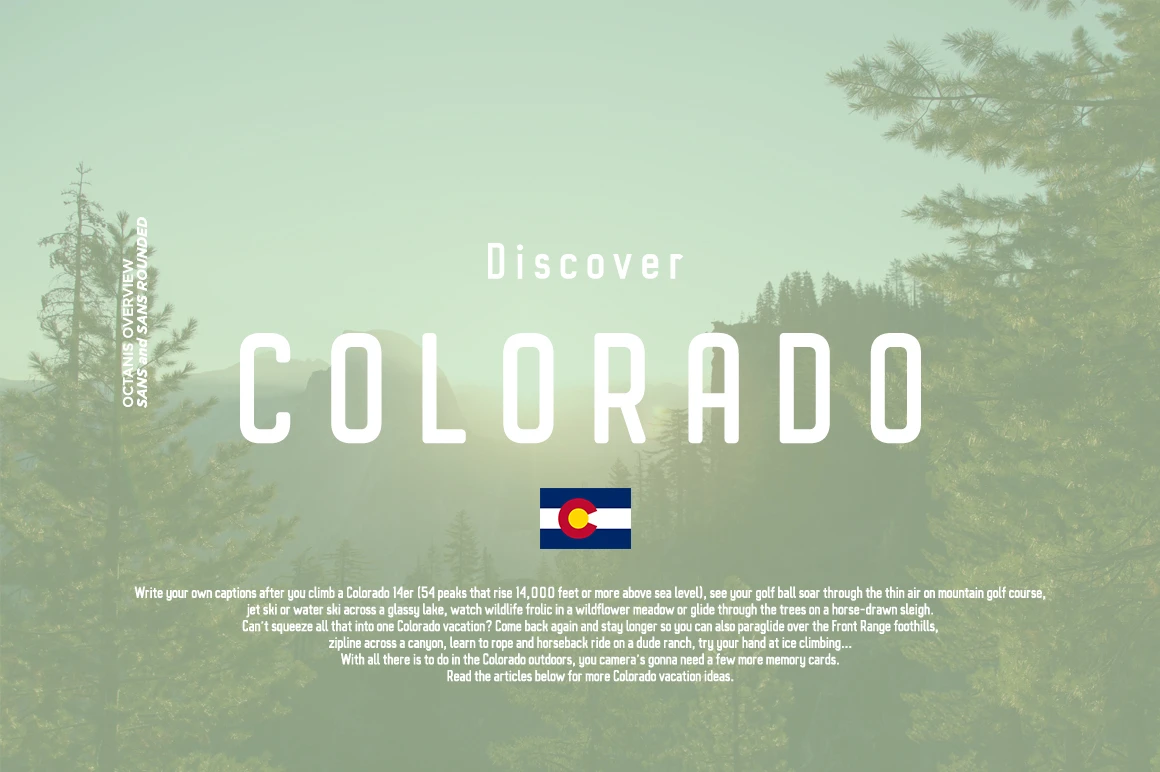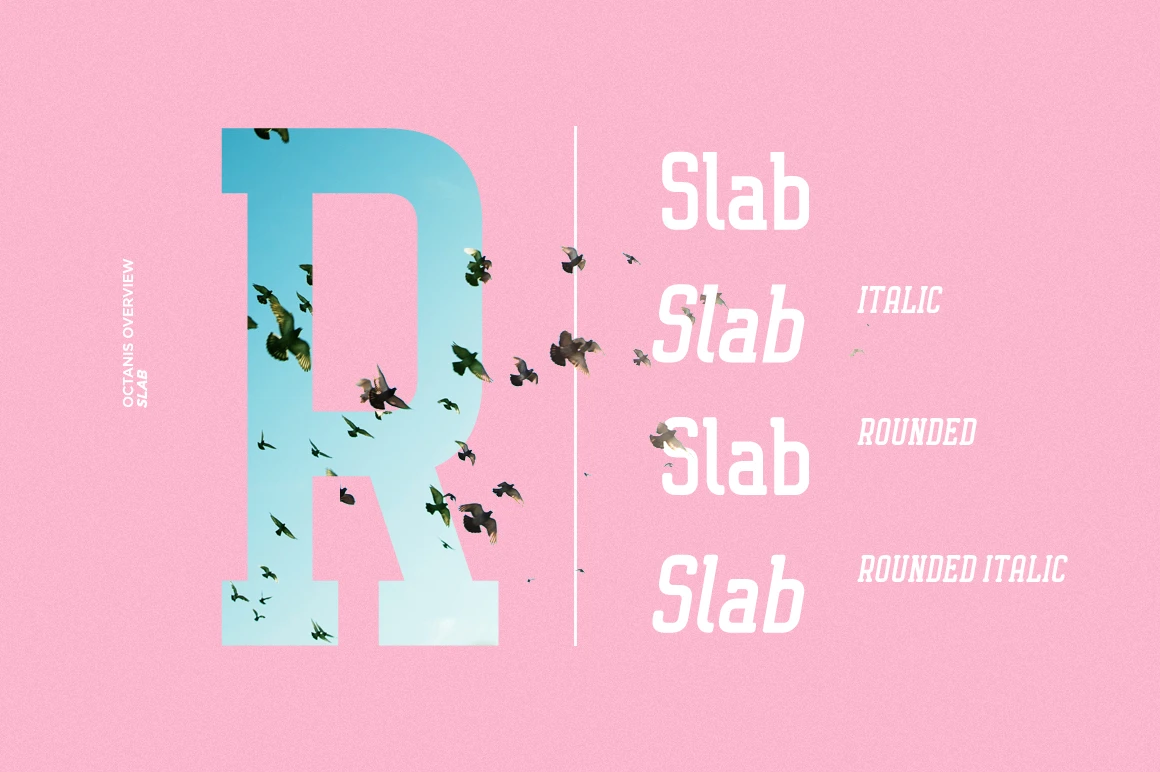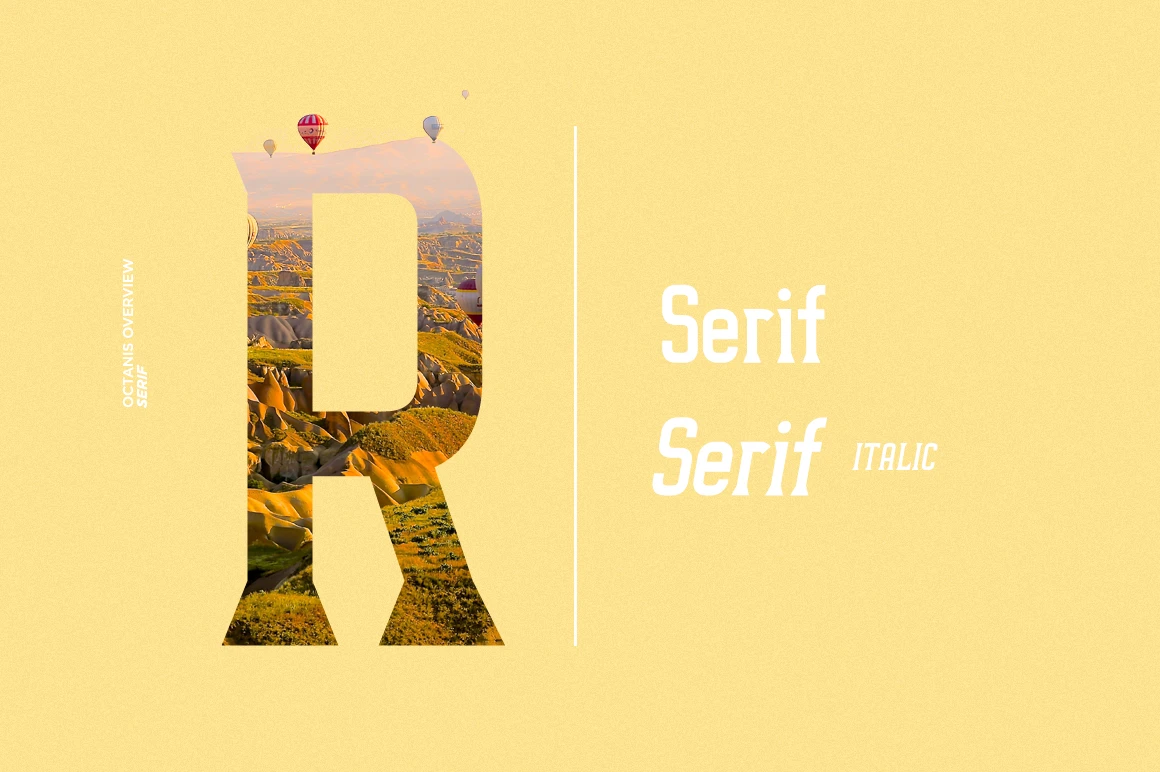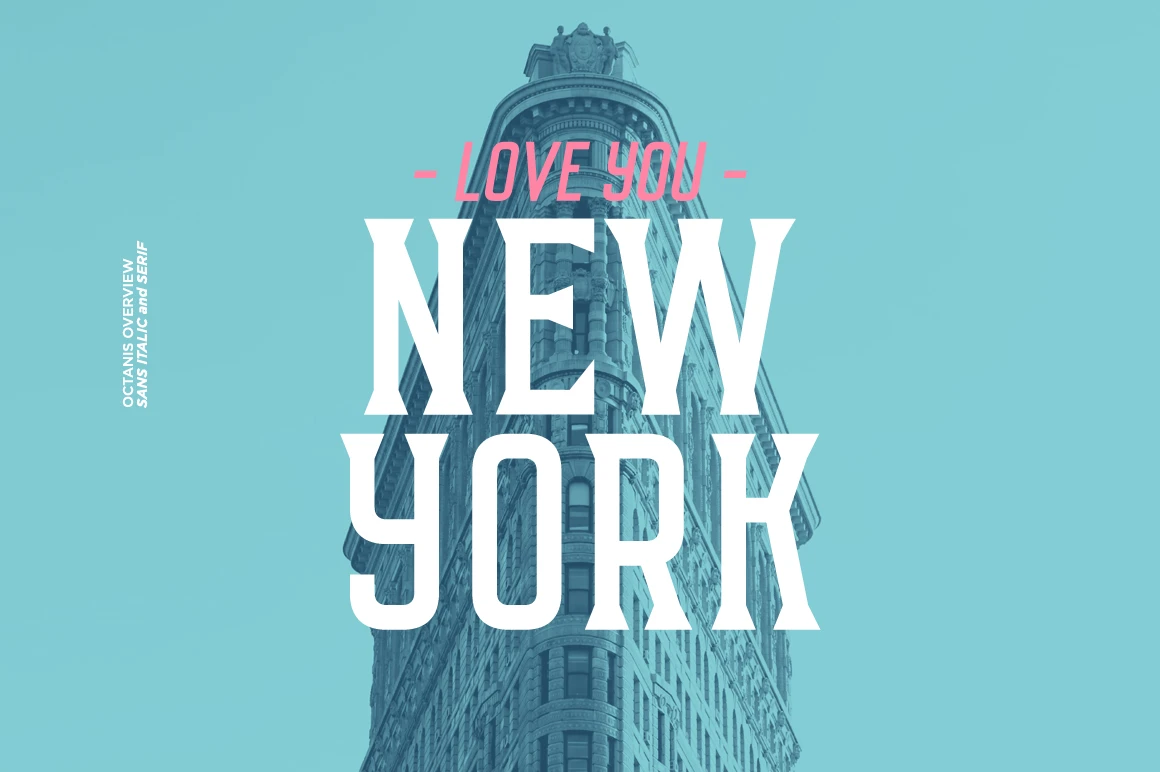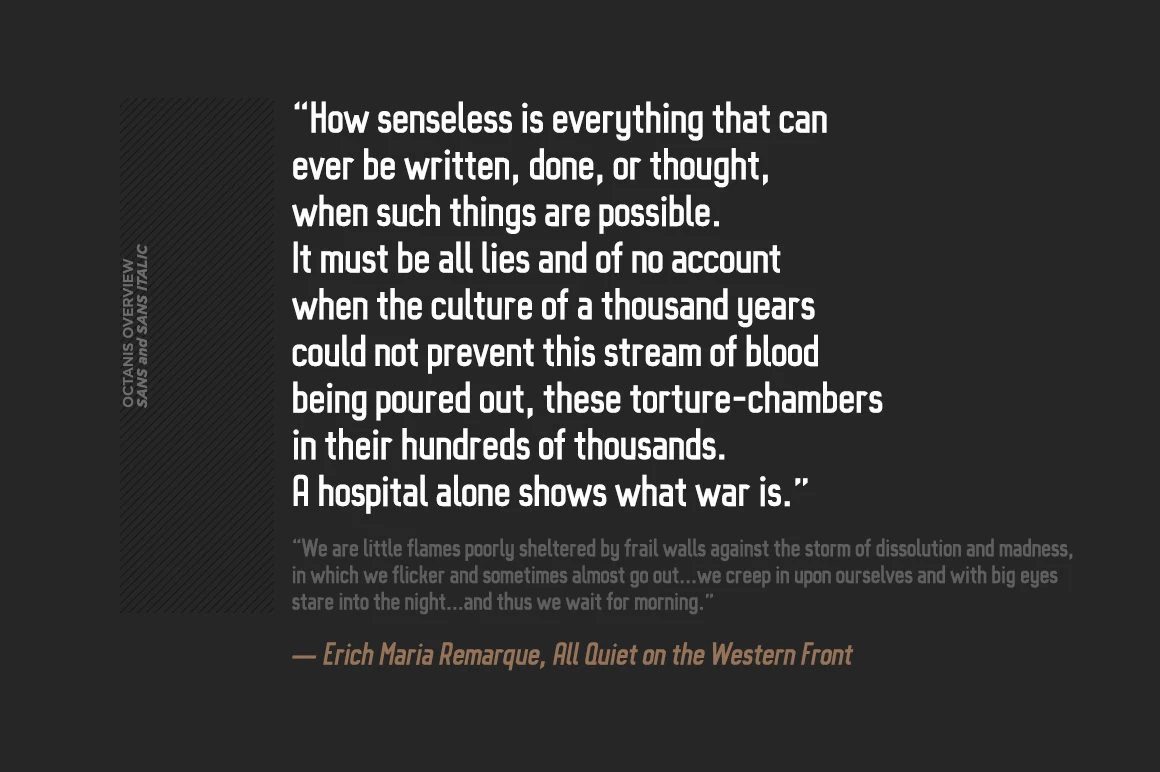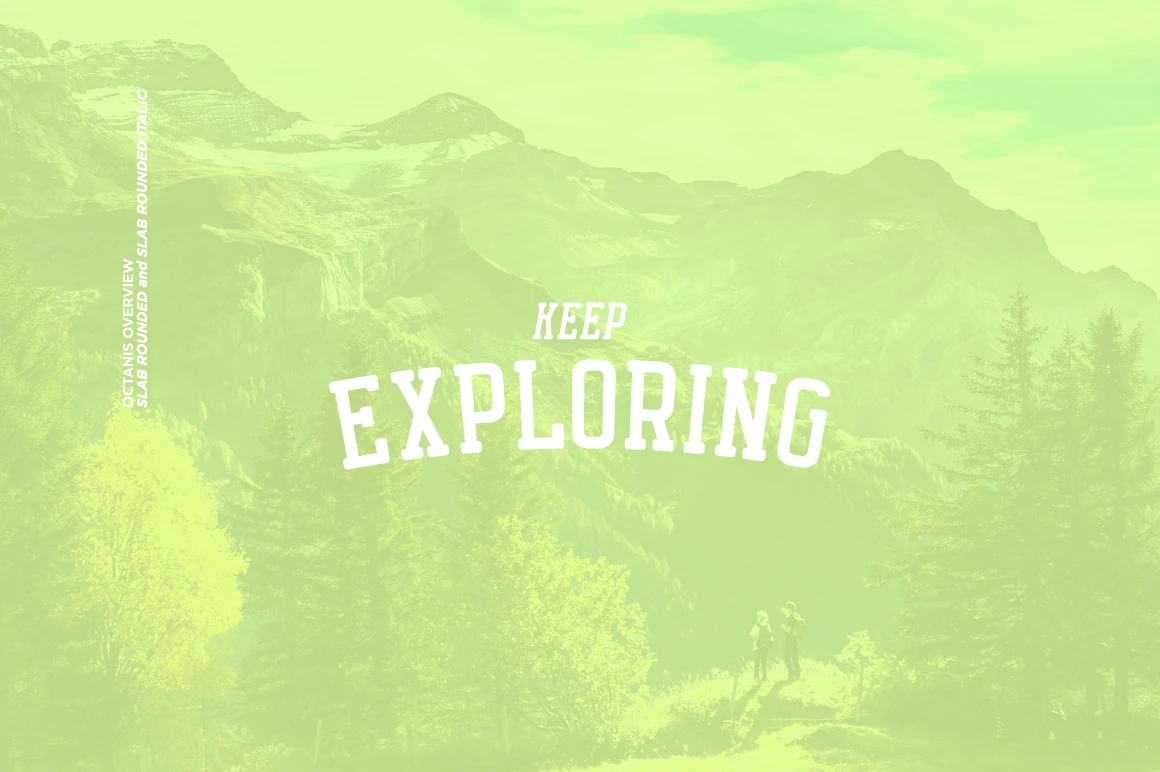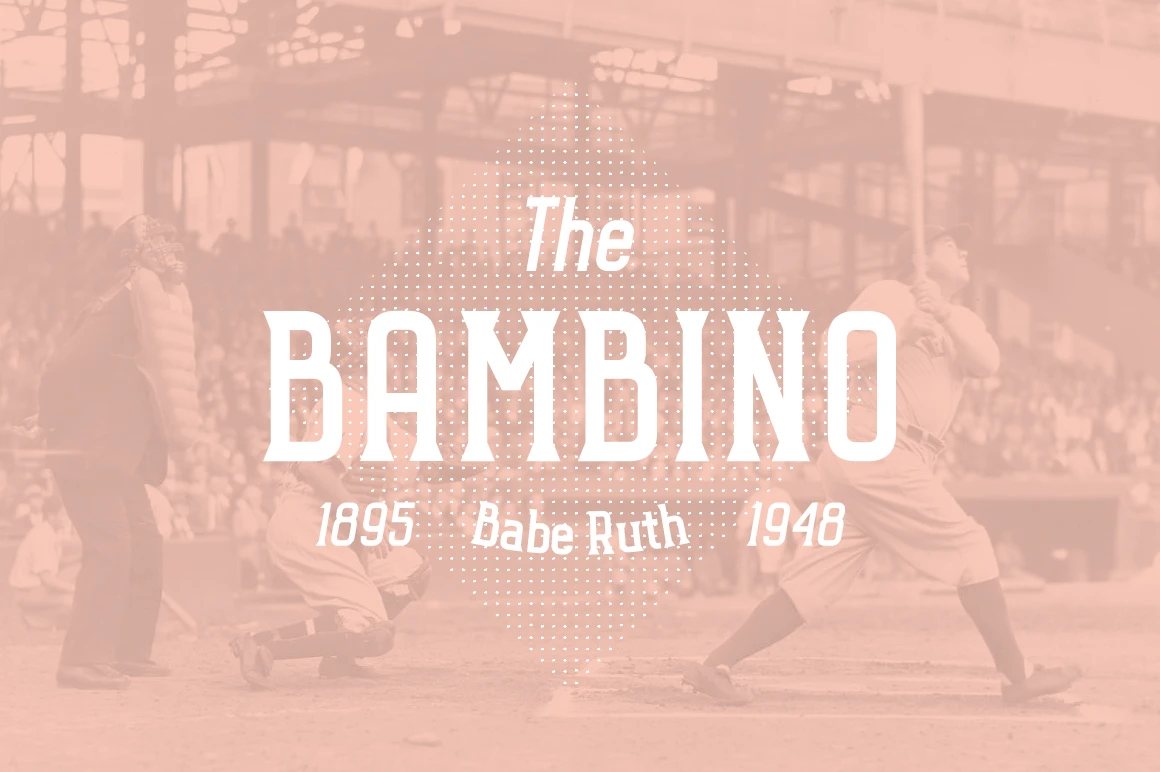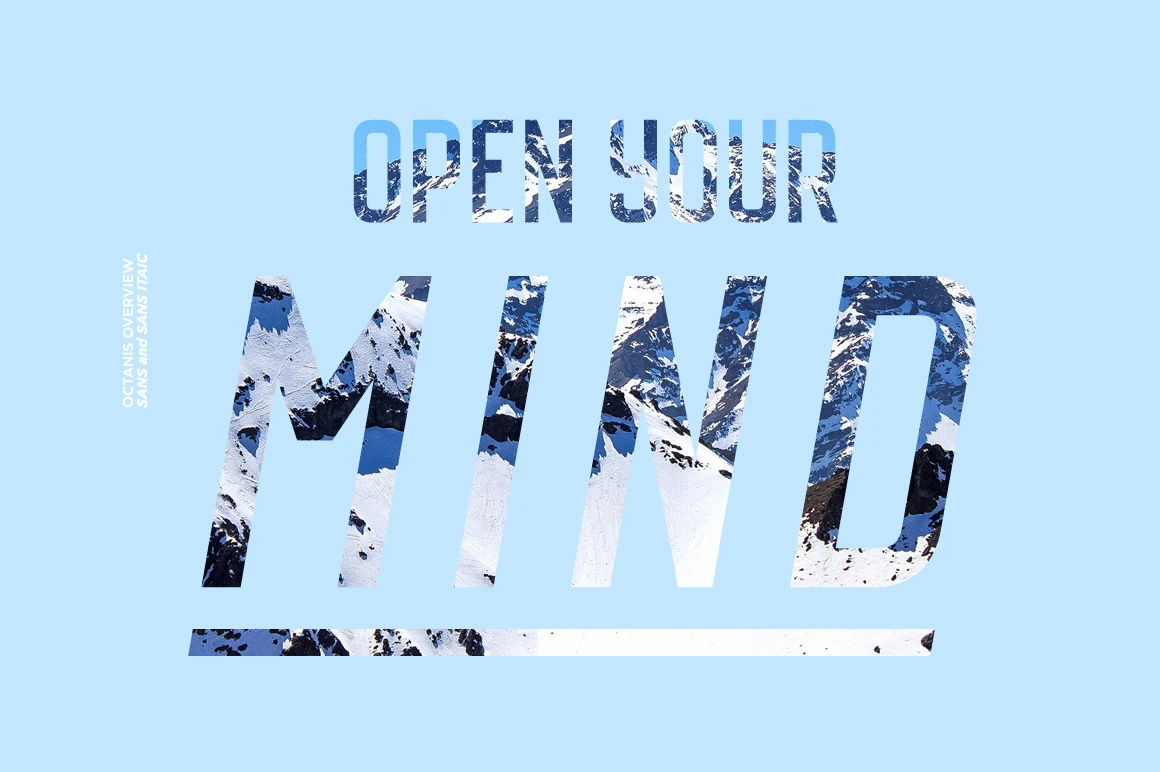
Octanis • 10 styles
Octanis is a modern font family offering a versatile range of styles for clean, thoughtful design. The sans and sans italic bring a bold, contemporary feel, while the rounded version softens the tone with a friendlier edge. For a more classic touch, the slab styles offer a subtle vintage look, and the serif goes fully retro for a traditional feel. With its minimal, adaptable design, Octanis is well-suited for branding, editorial layouts, packaging, and digital content.
• Stylistic Sets
Octanis Sans
Styles included • Regular • Rounded • Regular Italic • Rounded Italic
Octanis Serif
Styles included • Regular • Regular Italic
Octanis Slab
Styles included • Regular • Rounded • Regular Italic • Rounded Italic